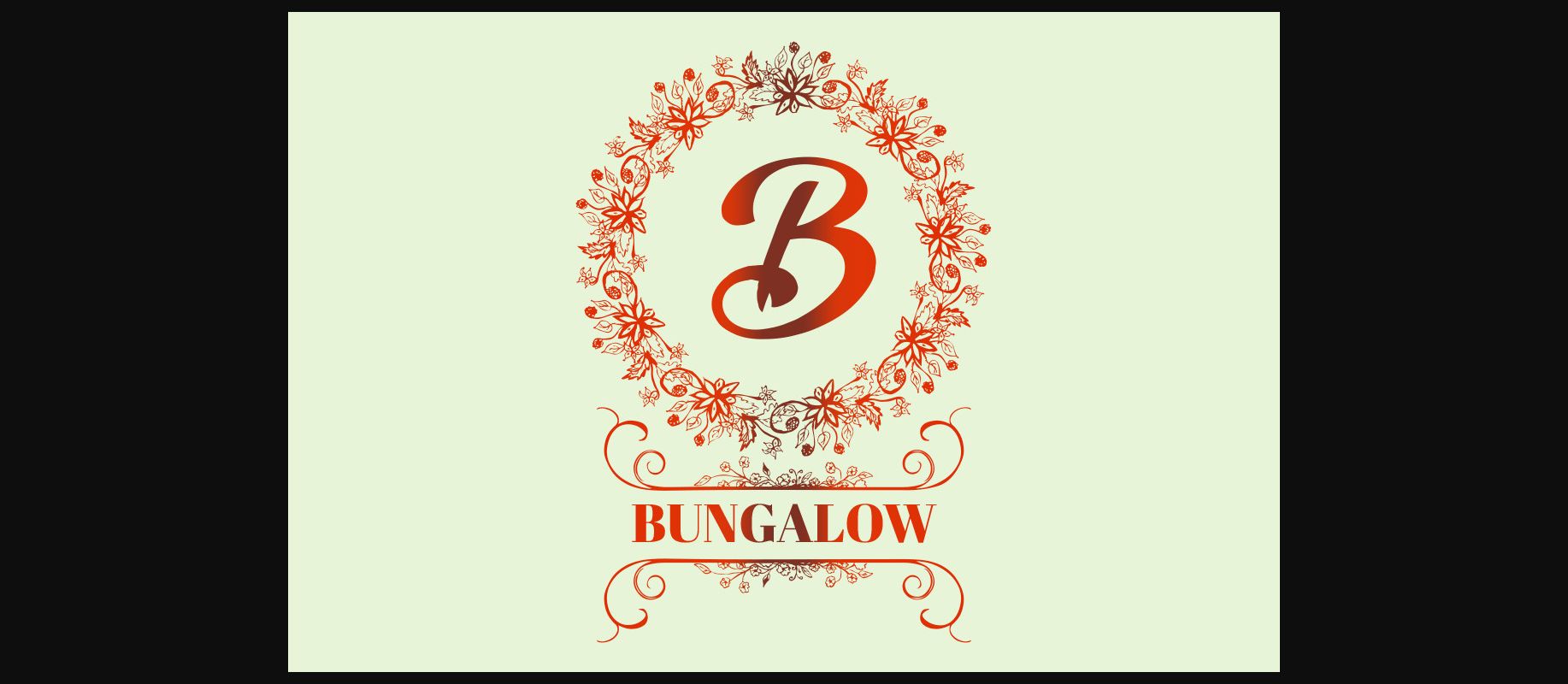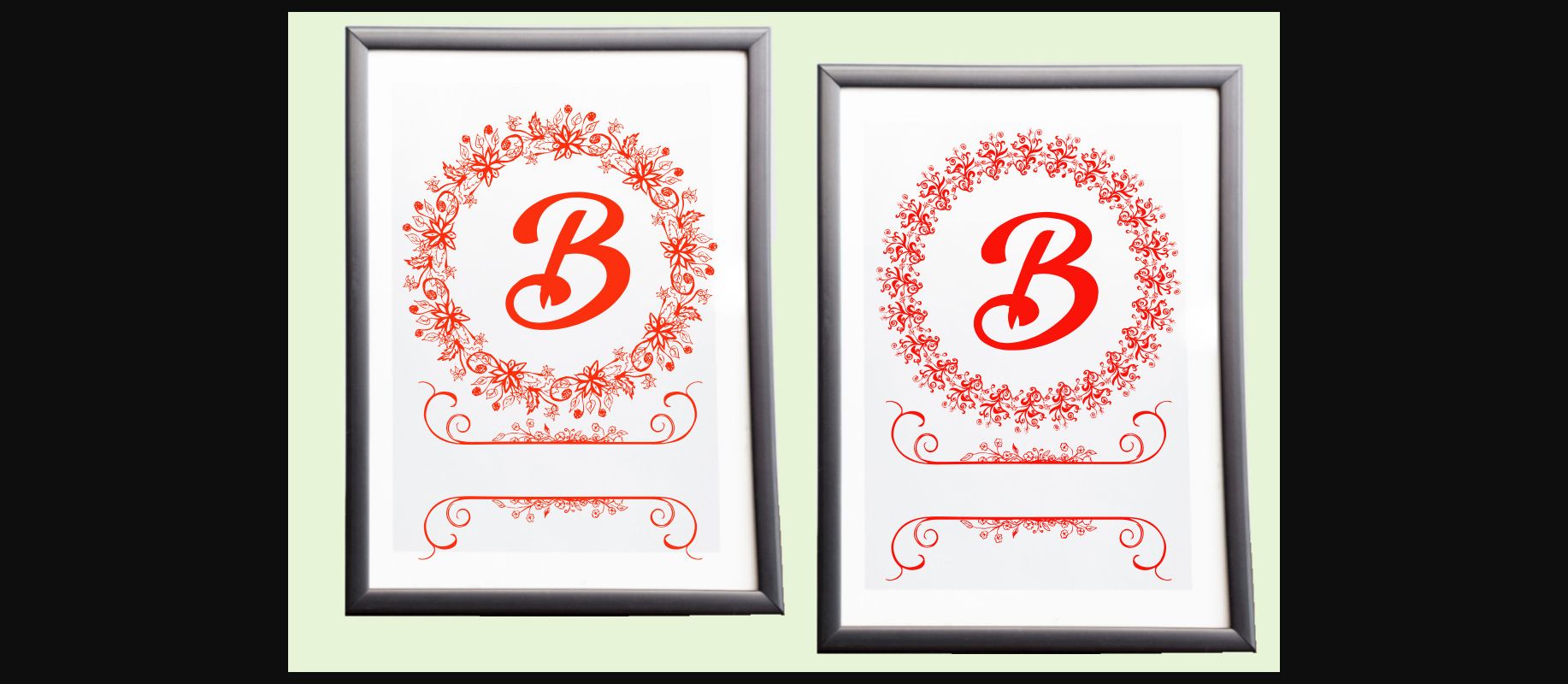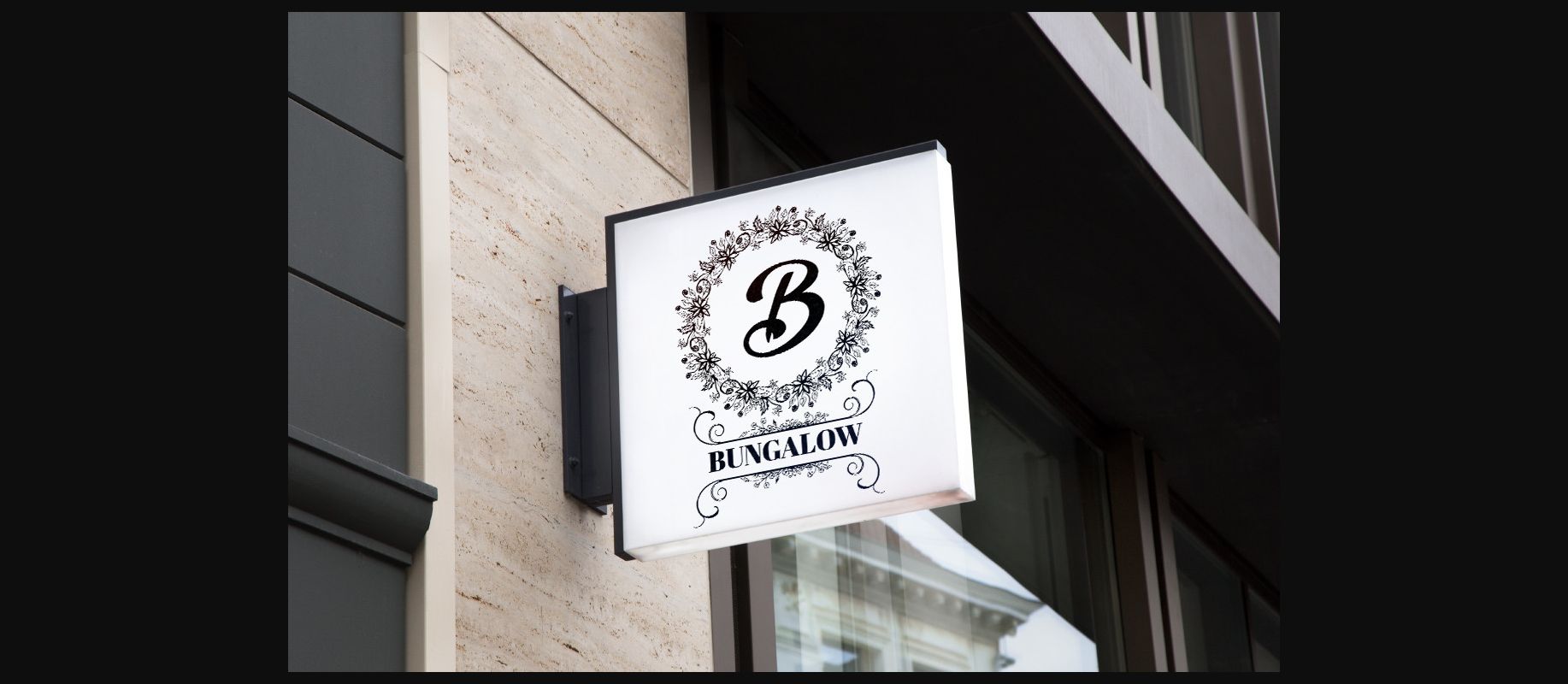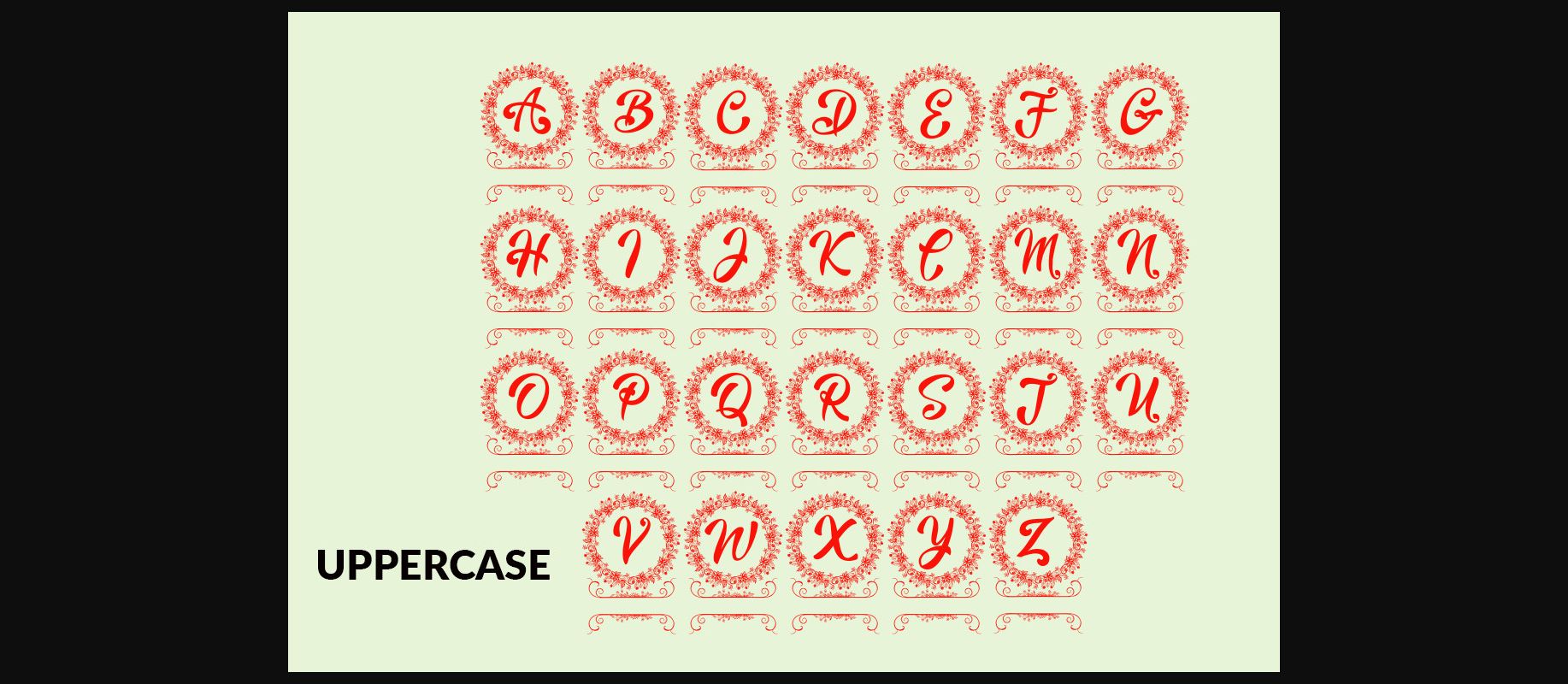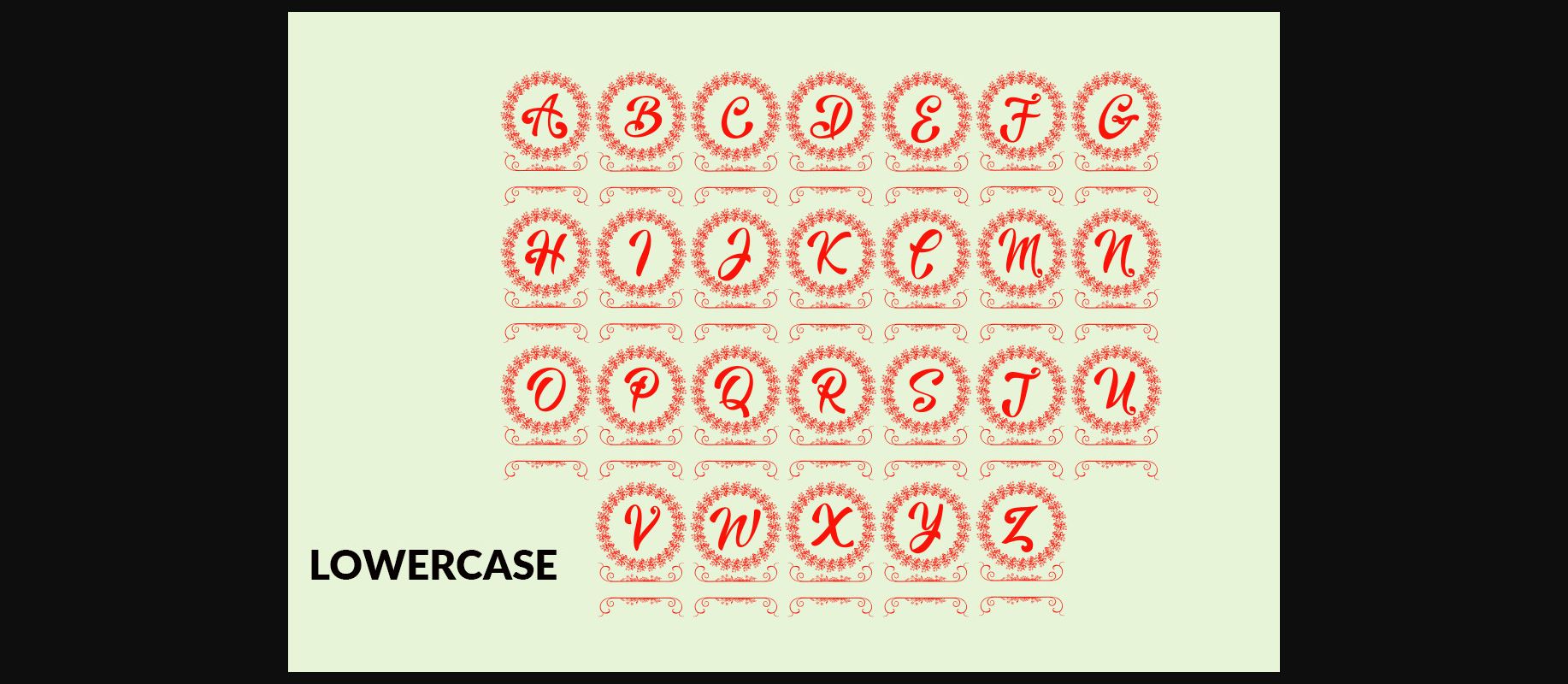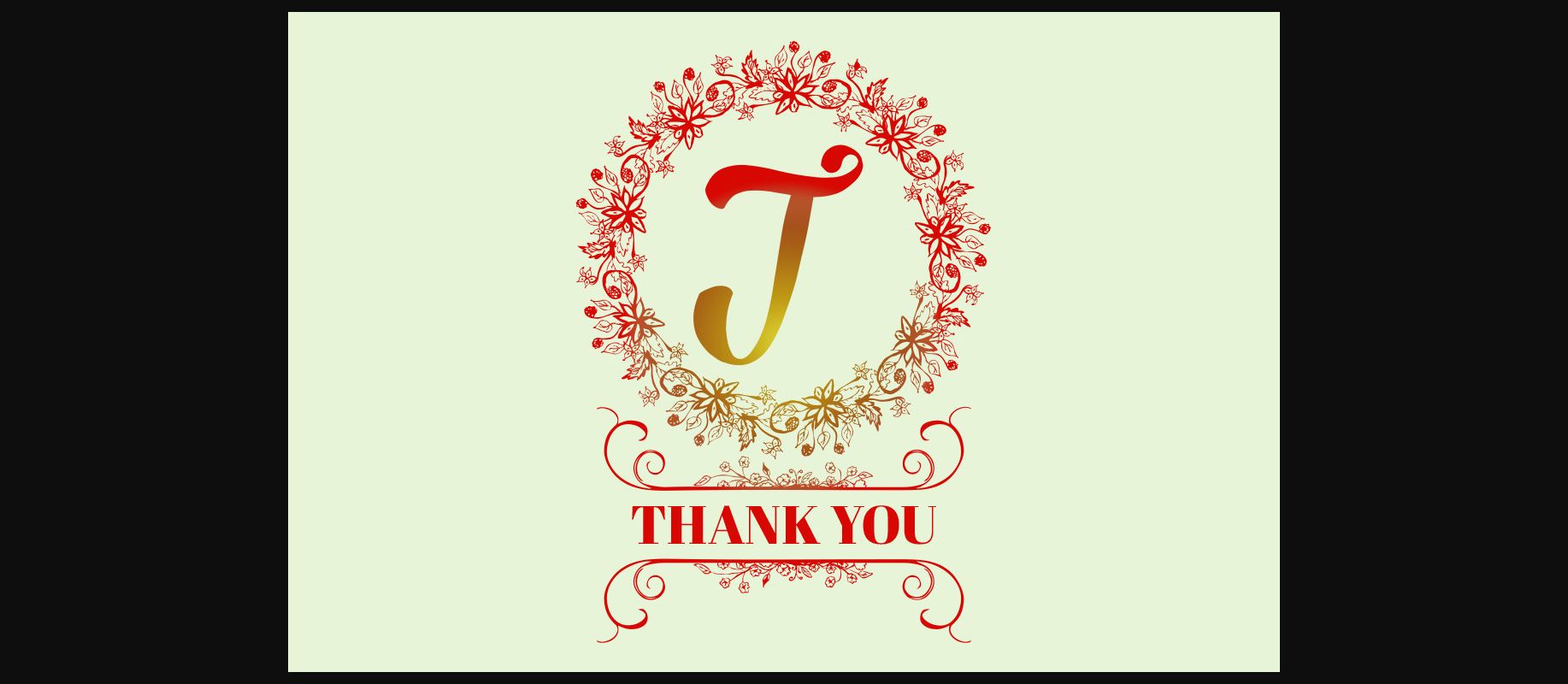
HomeDecorative FontsBungalow Font Decorative Fonts Bungalow Font FacebookXPinterestWhatsApp 1 of 8 ... Bungalow Font Poster 2... Bungalow Font Poster 3... Bungalow Font Poster 4... Bungalow Font Poster 5... Bungalow Font Poster 6... Bungalow Font Poster 7... Bungalow Font Poster 8... About Bungalow Font Bungalow is a highly detailed and dazzling decorative font. It will add a luxury spark to any design project that you wish to create! The only limit is your imagination. DOWNLOAD NOW People also explored Flirty Font Alindra Monogram Font Giselda Font Range Signyard Babylove Monogram Font Nanuk Dream Good Font Milky Way Font 302 0 TagsBungalow Font Previous articleKawaii Smile FontNext articleMy Cat\’s Paw Font LEAVE A REPLY Cancel reply Comment: Please enter your comment! Name:* Please enter your name here Email:* You have entered an incorrect email address! Please enter your email address here Website: Save my name, email, and website in this browser for the next time I comment. Personal Use Free Mowgli Personal Use Free Read more about this font Nouradilla Script Free Version Personal Use Free Read more about this font Goldsaber Personal Use Free Read more about this font Recharge Bold Personal Use Free Read more about this font BLOG How to Cut Any Font on Cricut: Convert a Font to SVG (Free) Turn any font into a clean SVG so it cuts crisp on Cricut - a quick 3-step workflow using a free font-to-SVG tool. Transform Your Website: Elevate Your Typography with 7 Best Web Font Generators Exploring Font Trends To increase your work productivity, choose the most readable fonts.